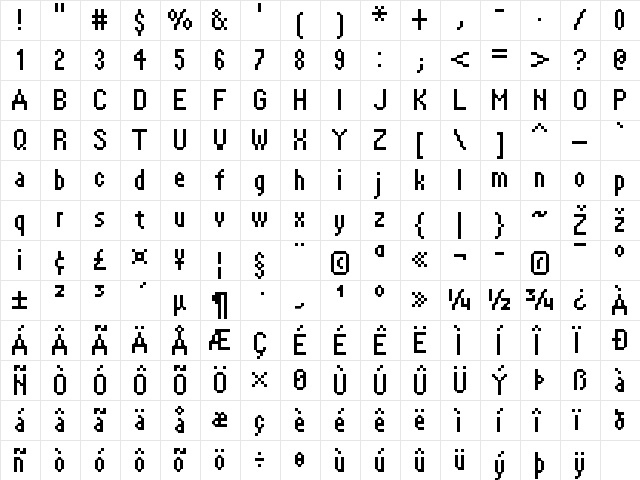
FFF Lighthouse Regular
Design Context for FFF Lighthouse Typeface
FFF Lighthouse takes a measured approach to typography — its balanced proportions and neutral character make it a reliable workhorse for both digital and print work. The delicate stroke weight brings airiness and refinement to layouts.